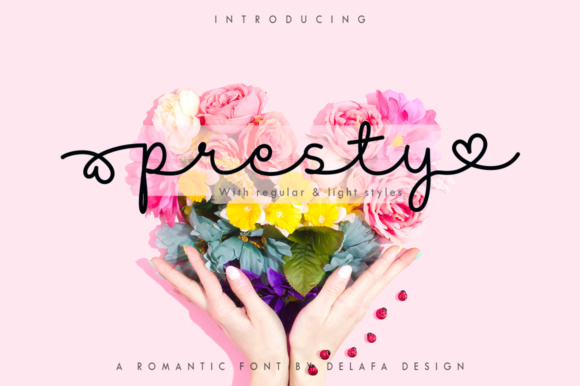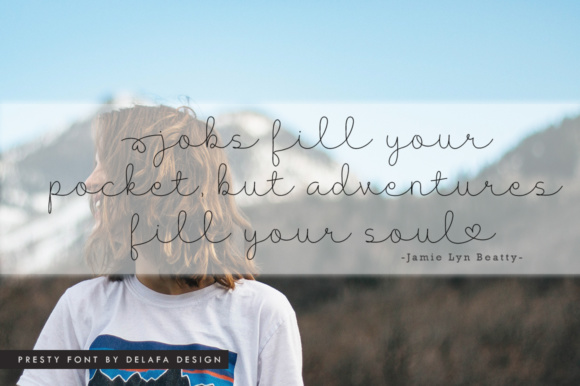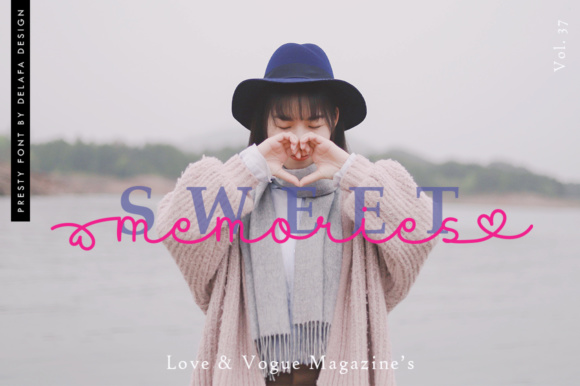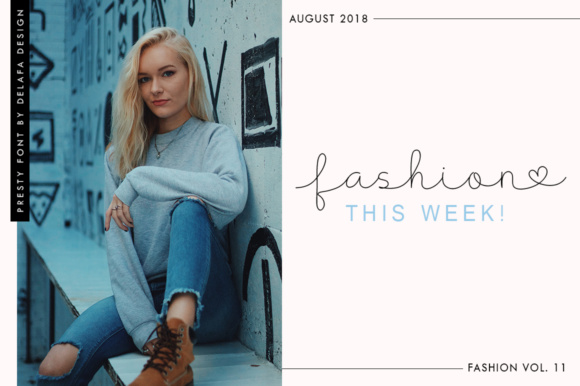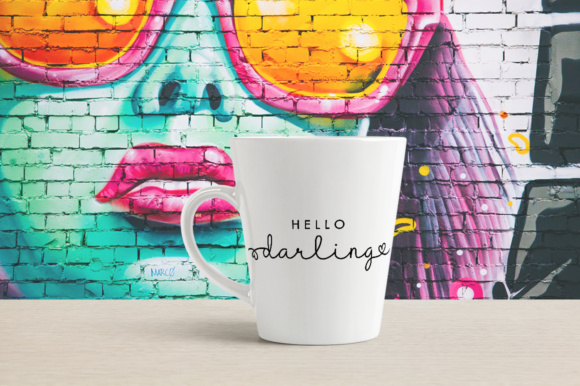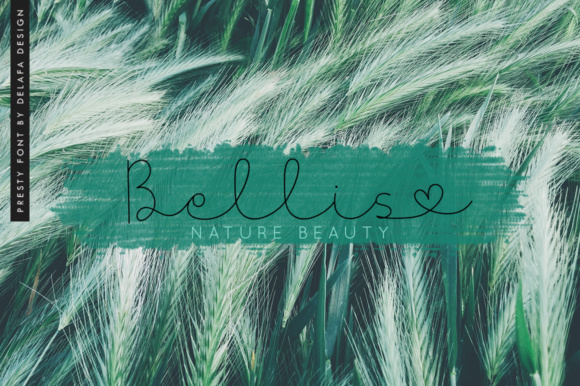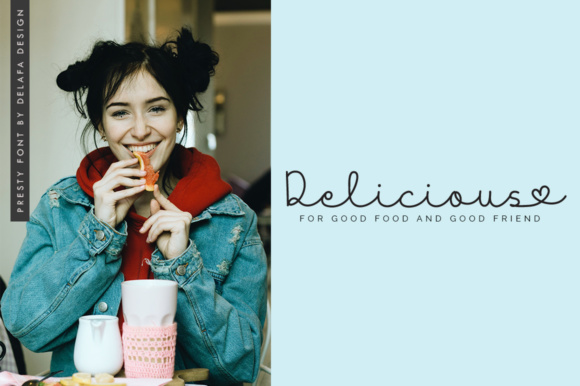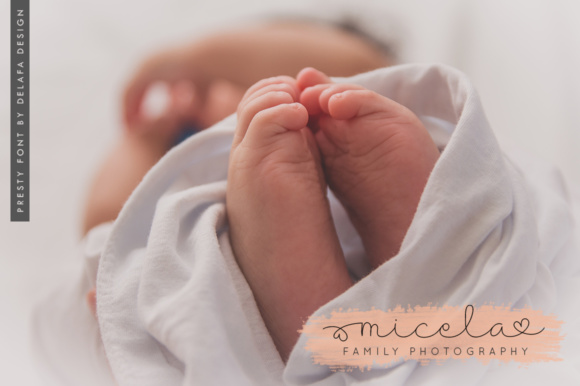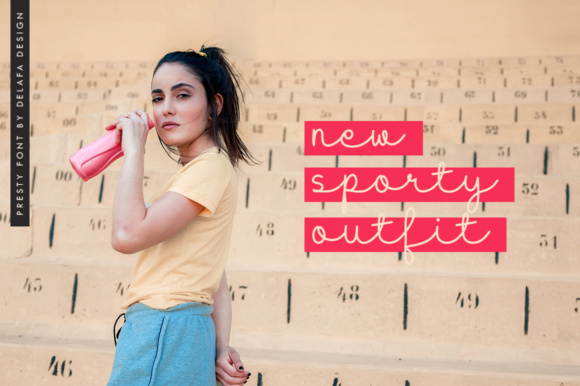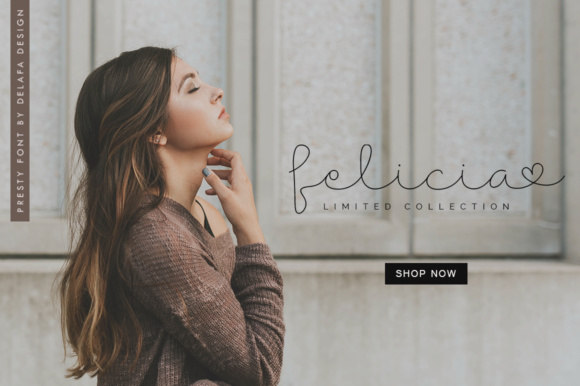
Presty Font
About Presty Font
Presty is romantic handmade font. Every single letter has been carefully crafted to make your text look beautiful. Presty comes in two styles: regular and light. You can use Presty for branding, weddings, invitations, magazines, handwritten quotes, etc.